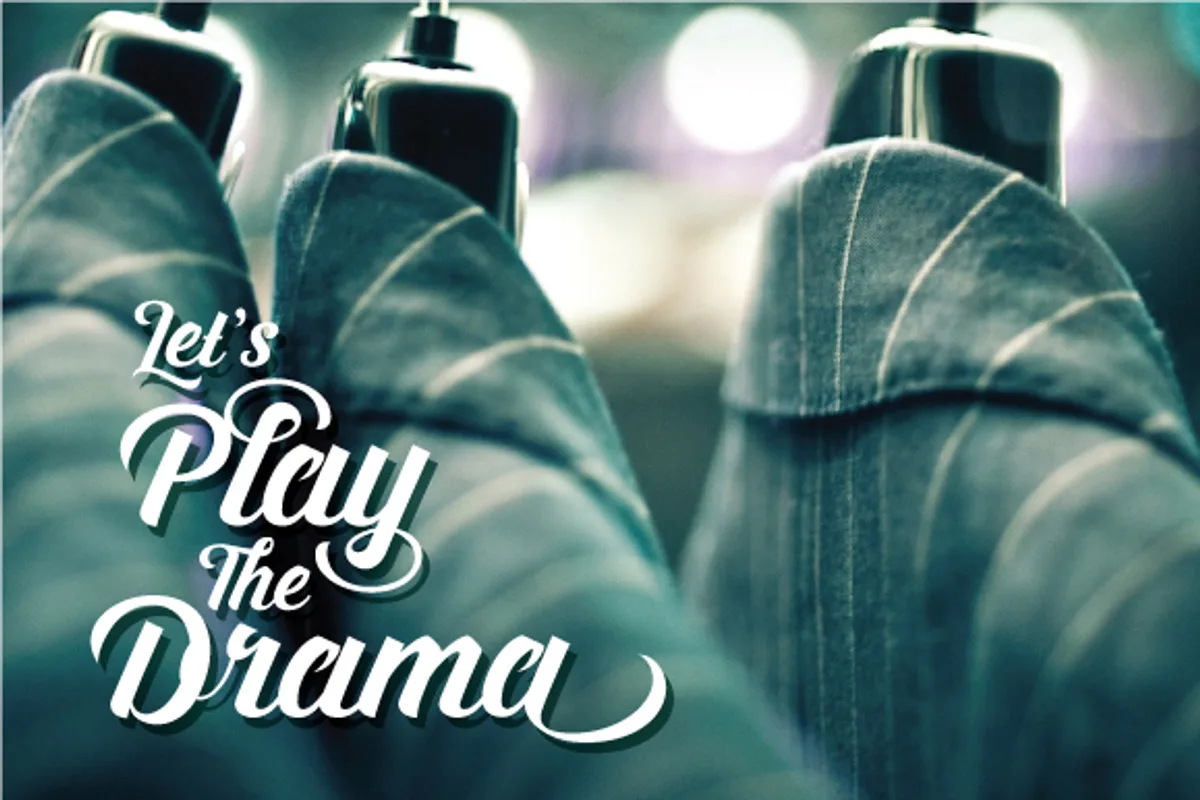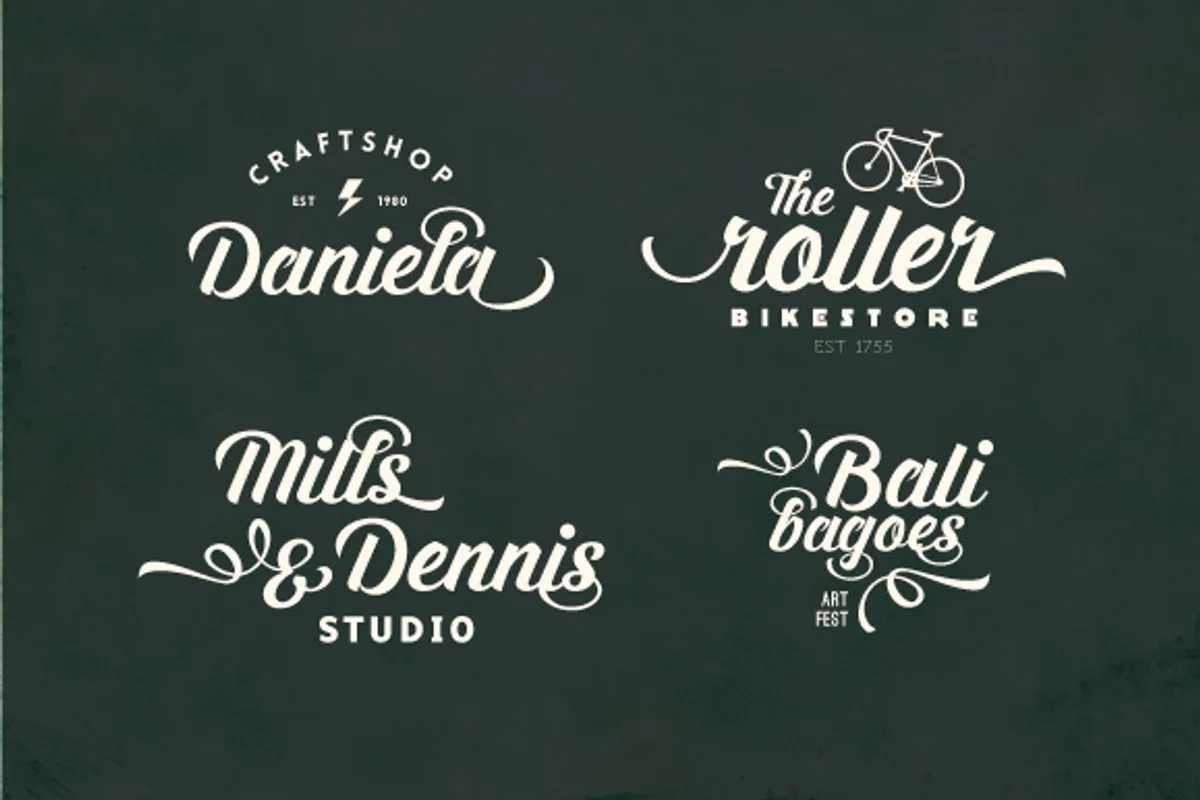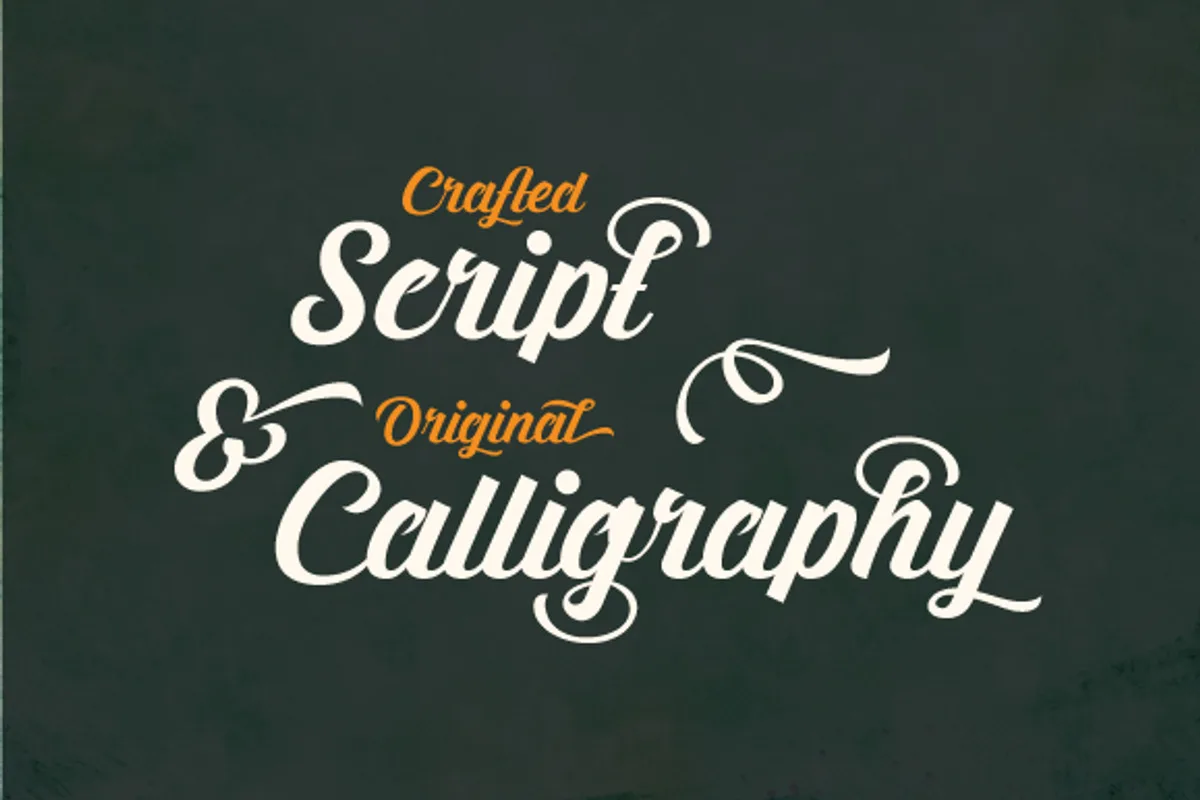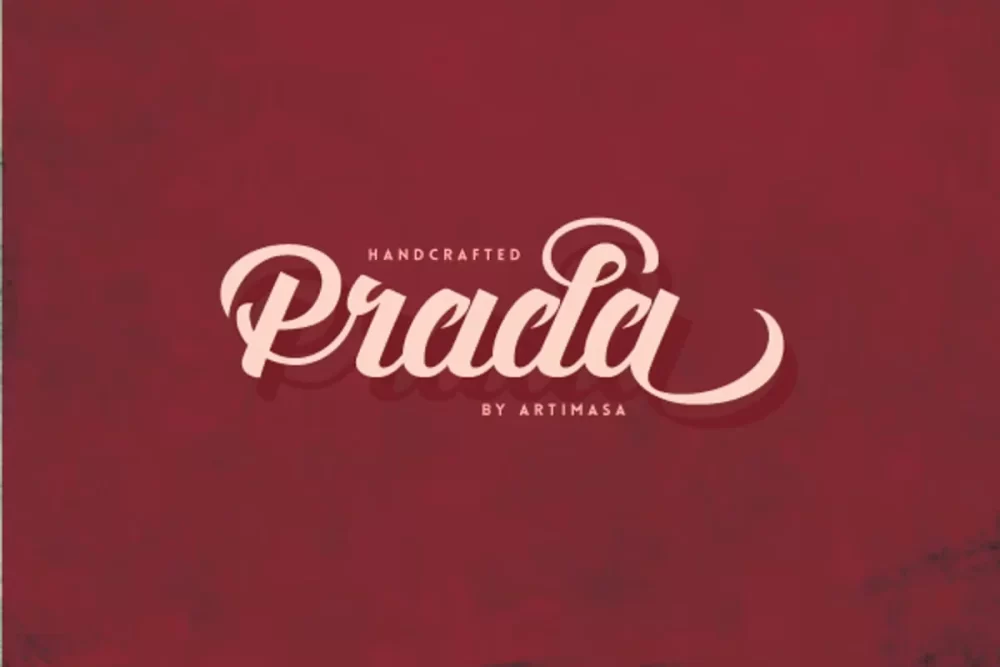
Prada is bold, classic, and fun vintage script font. Crafted with OpenType features with more than 60 alternate characters to choose. This font was designed to suited as headlines, signage, poster, logo, badge, and emblem. Make sure you use OpenType savvy program and simply open Glyph Palette to access all of the glyphs.